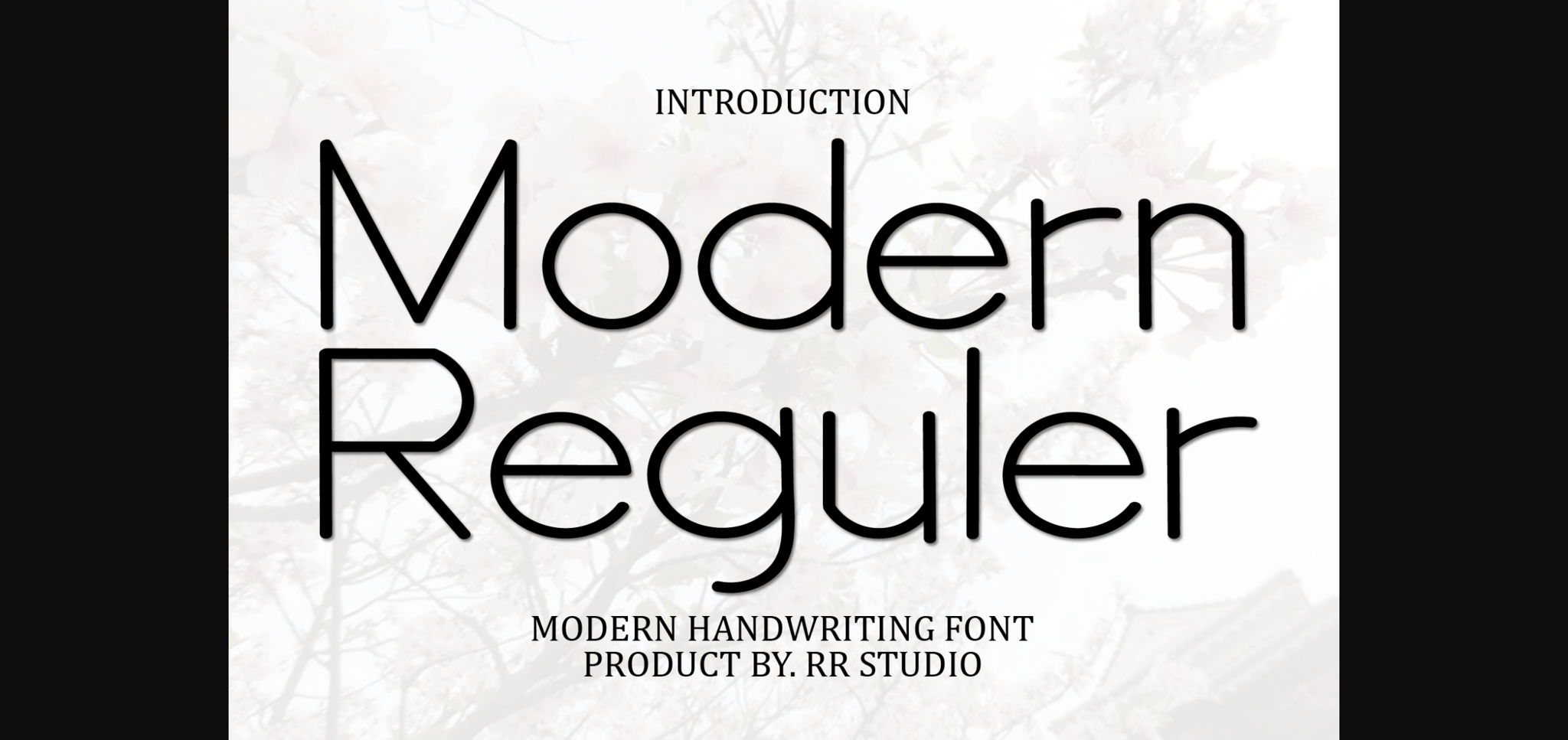
Modern Reguler Font
About Modern Reguler Font
Modern Reguler is a flowing, sleek, and trendy sans-serif font. Add it confidently to your crafty projects and enjoy the results!